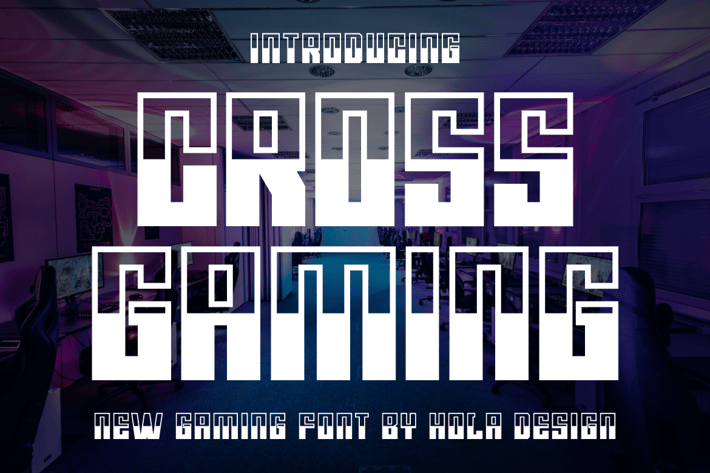
Cross Gaming Font
Cross Gaming Font Font is unique . Ready to use for your design like labeling, movie sceen, poster, movie title, gigs, album covers, logos, and much more.